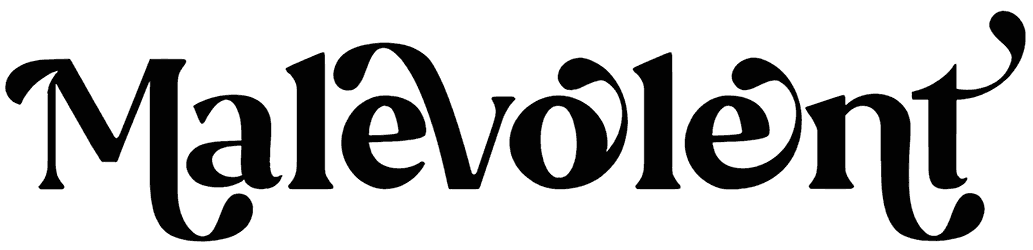
Malevolent Font
If you’re looking for a classic-looking font, Malevolent is the best one for you. A variety of artwork that necessitates a pleasing and established appearance will benefit much from its intriguing and reliable design.